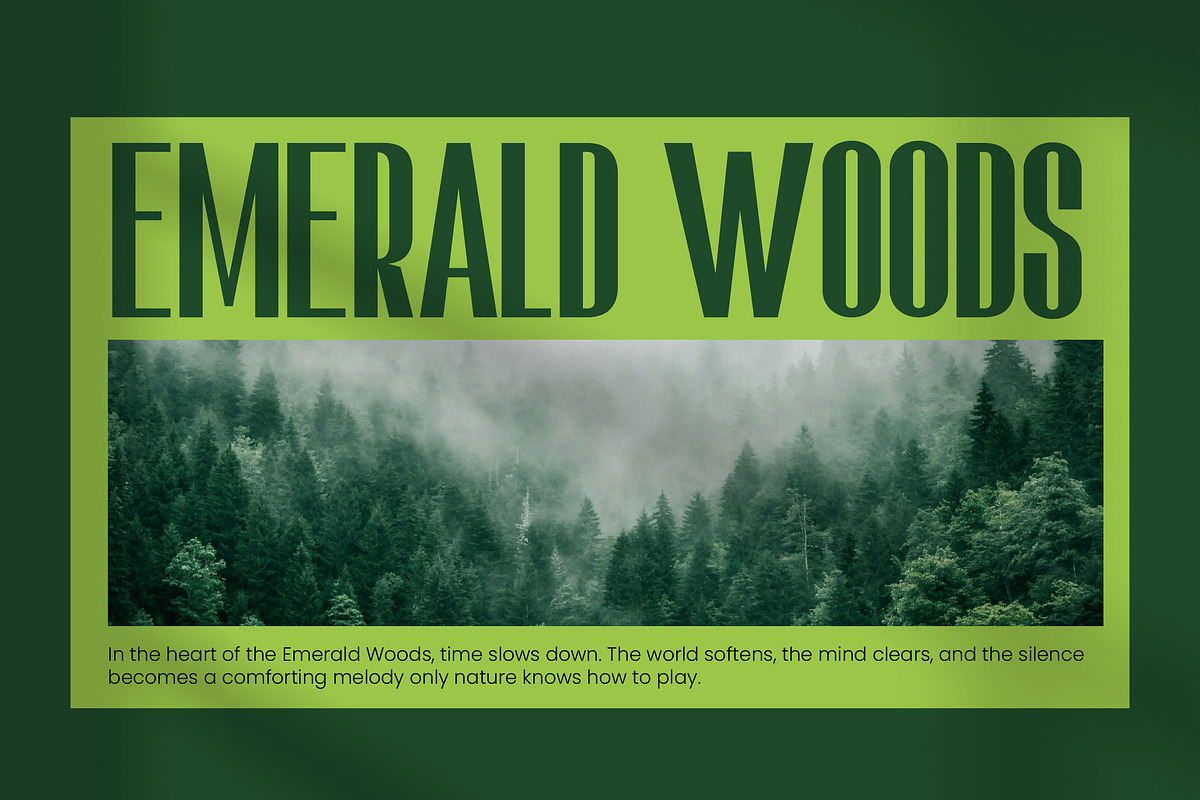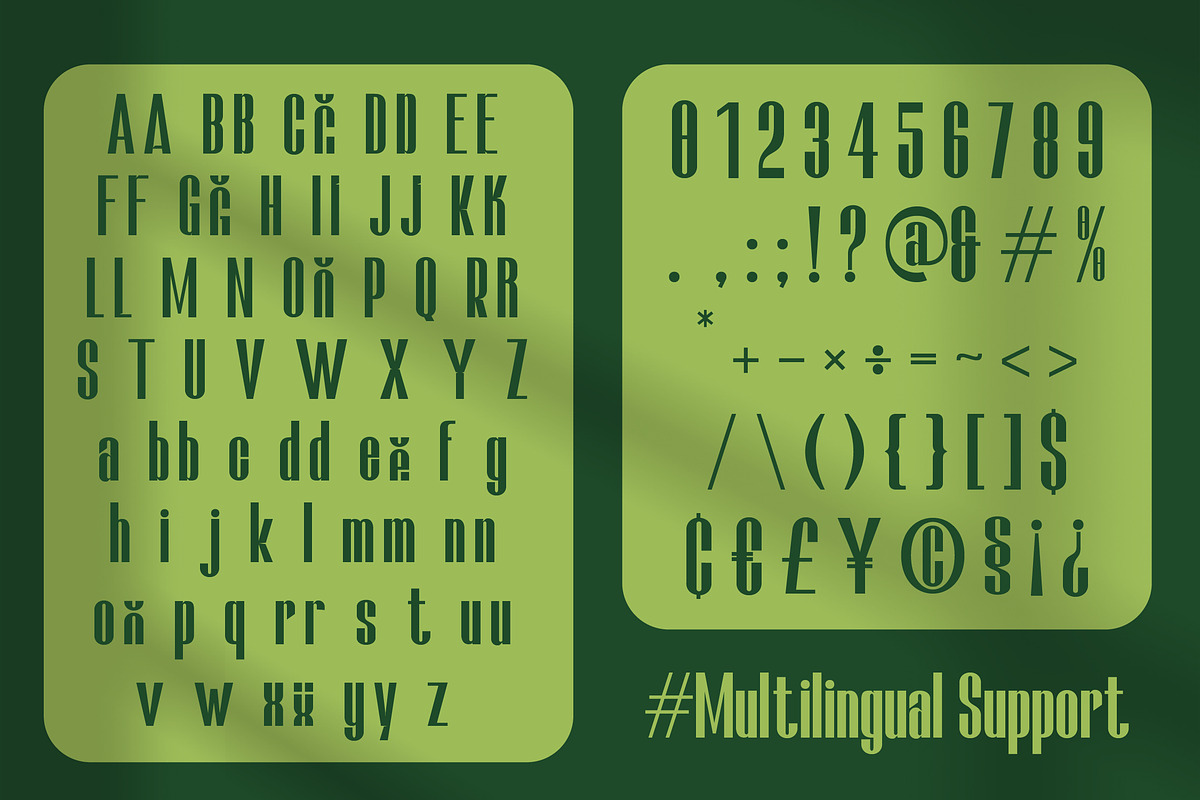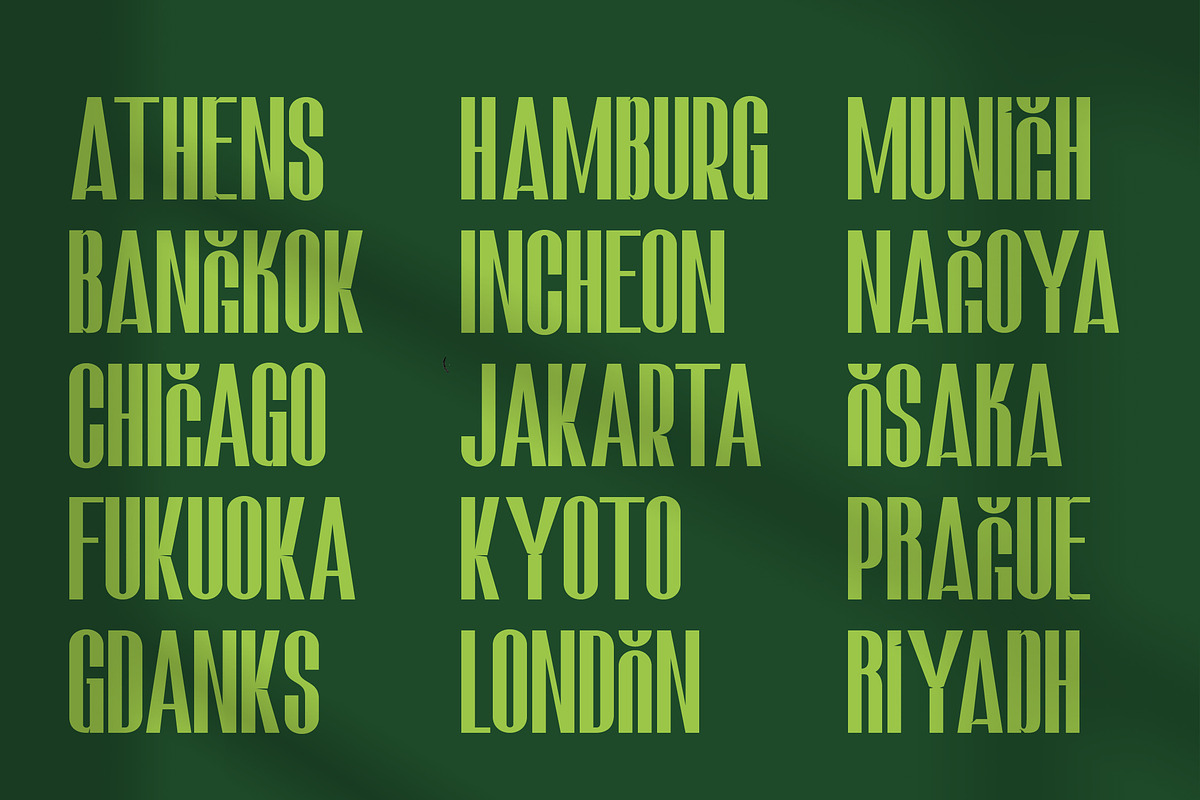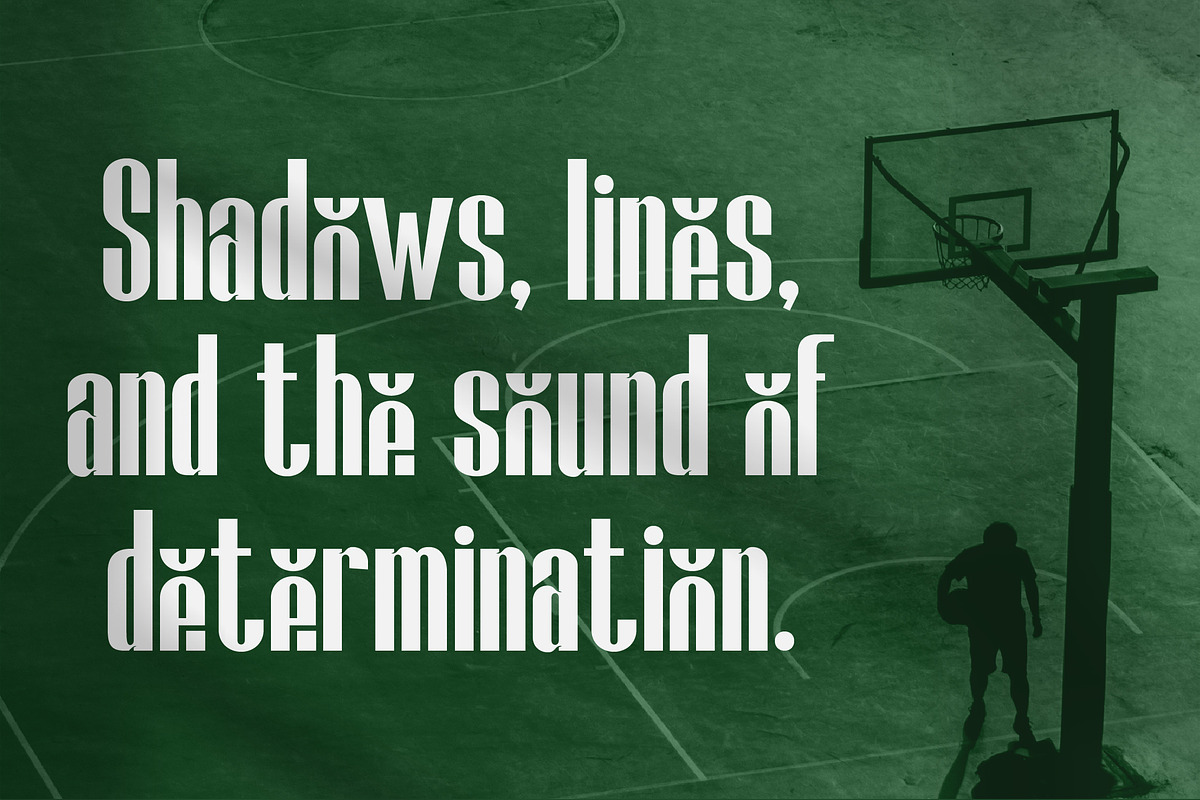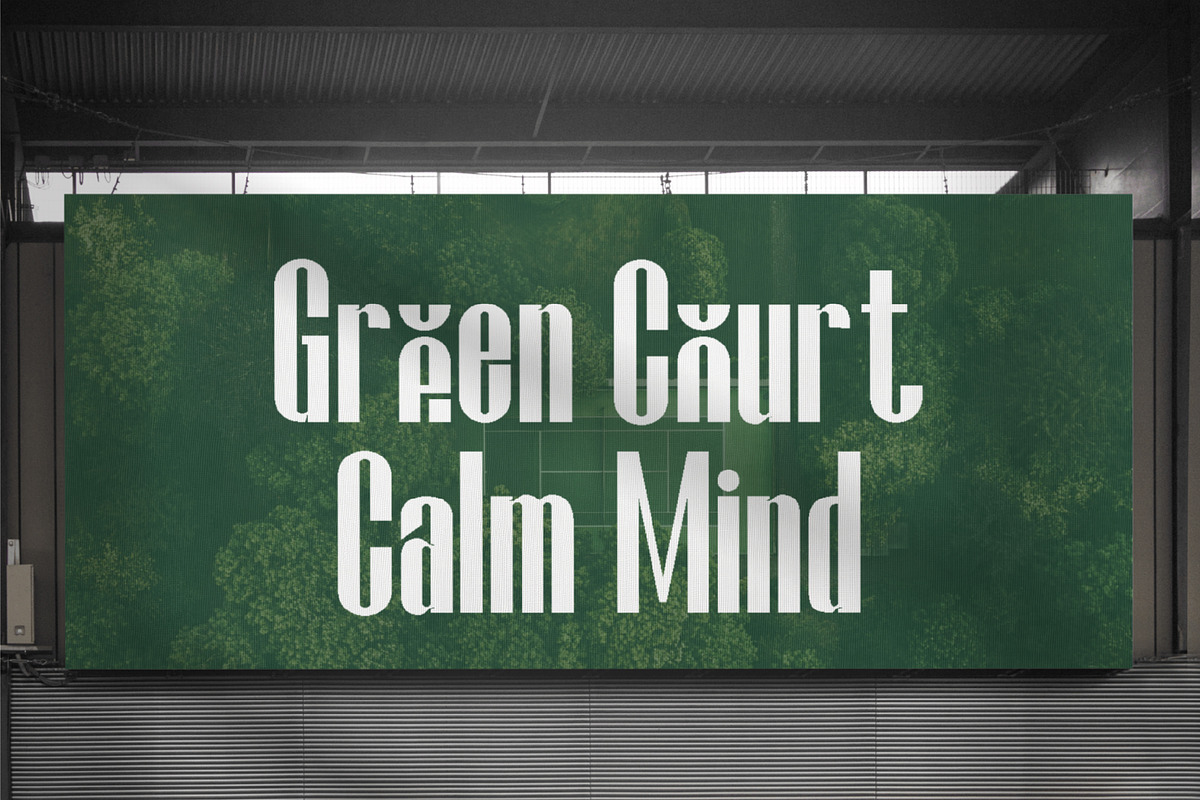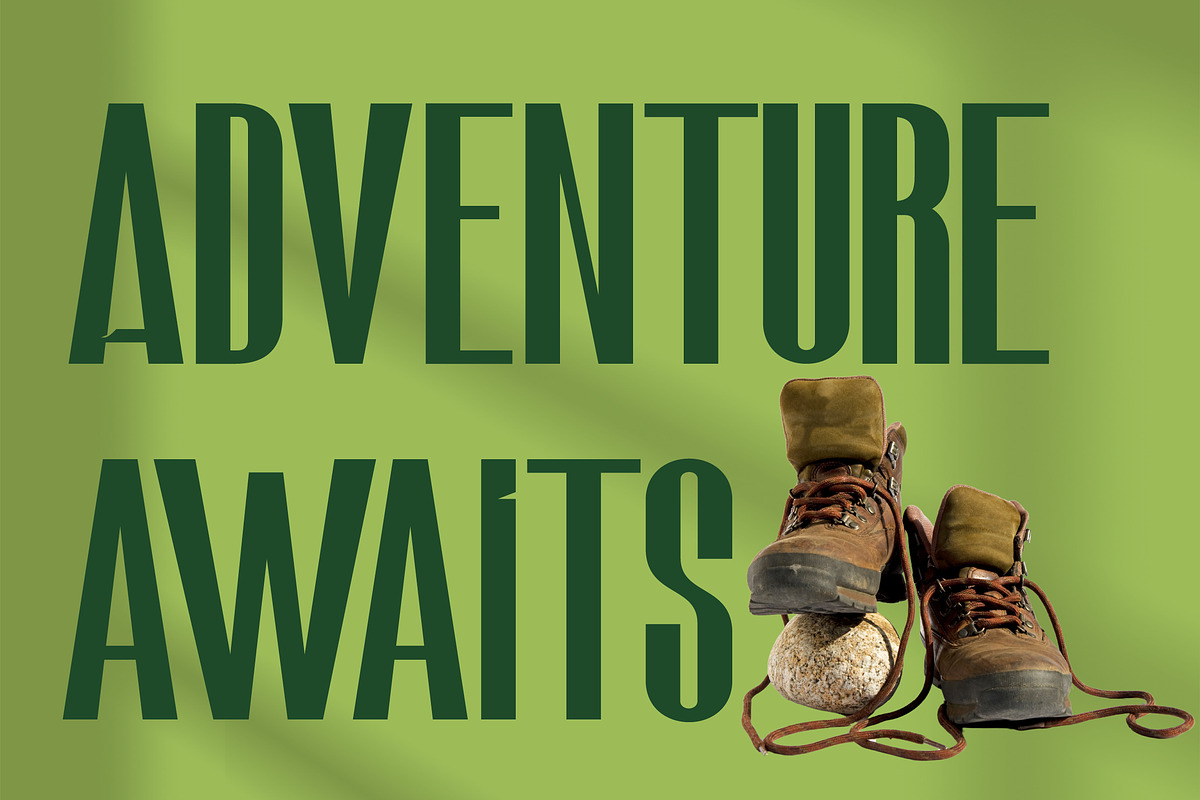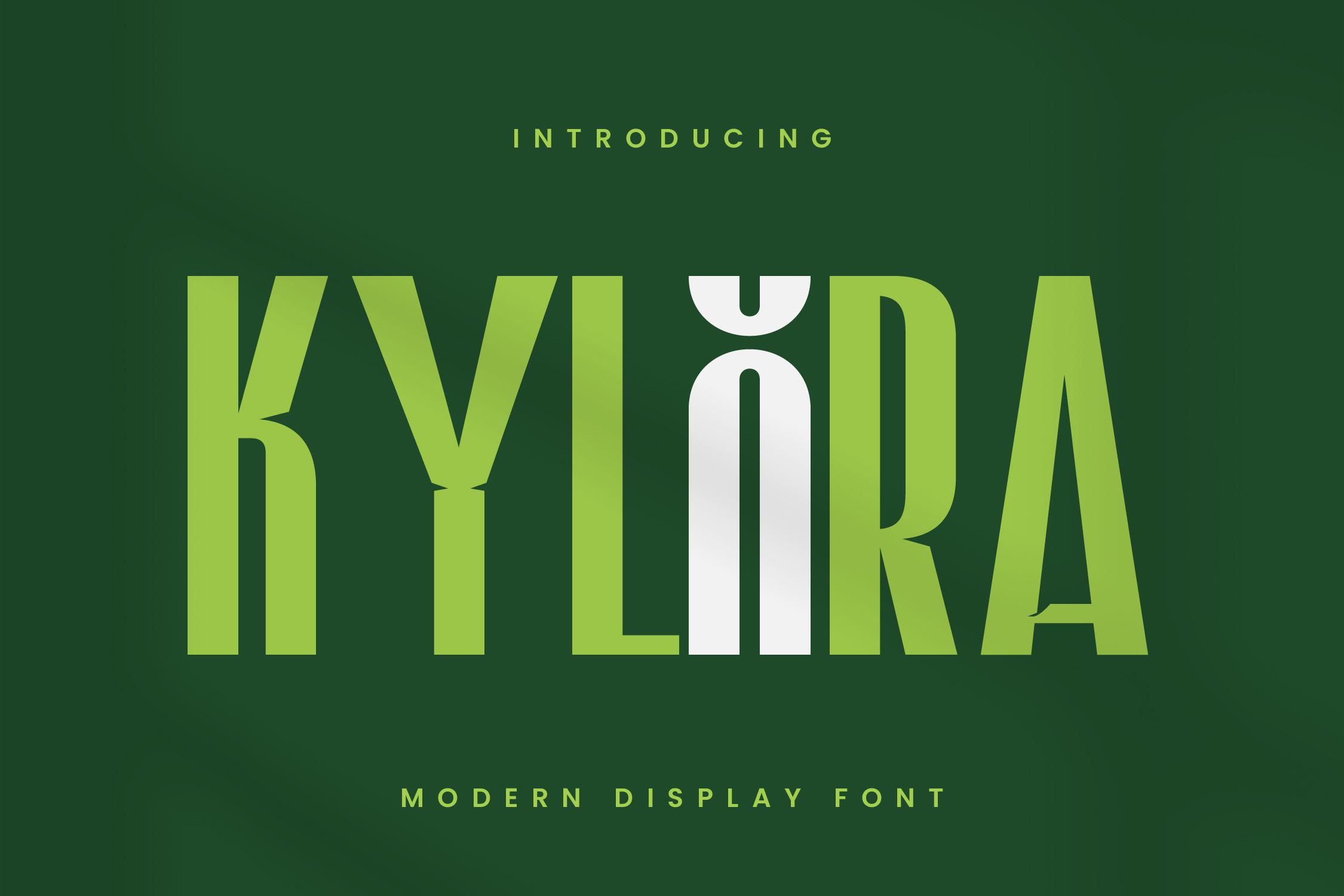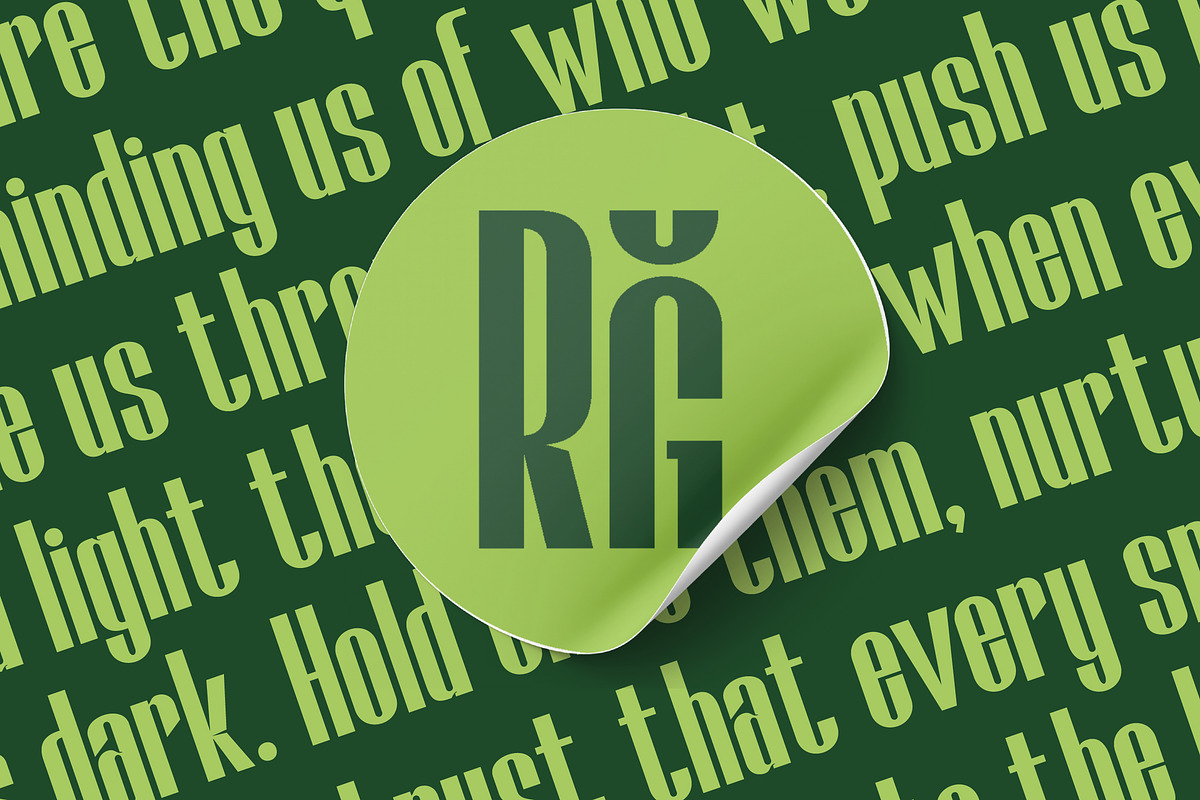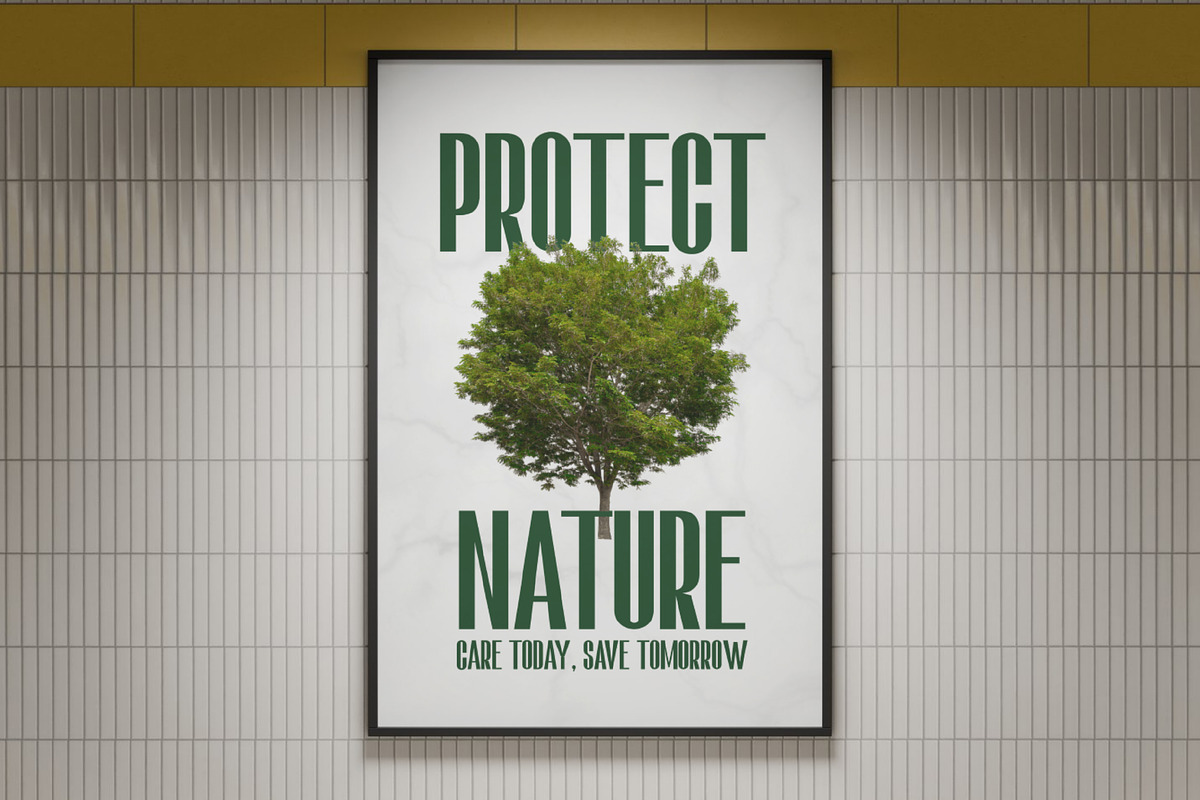
Kylora – Modern Display Font
Kylora is a bold modern display font designed with tall proportions, refined geometric forms, and a distinctive contemporary character. Blending elegance with a futuristic edge, KYLORA features elongated letterforms, sharp curves, and expressive accents that deliver strong visual impact and confident style.
Its narrow spacing and vertical rhythm create a sleek, eye-catching flow that stands out beautifully in both digital and print layouts. Each glyph is carefully crafted to balance simplicity and sophistication, making KYLORA highly versatile for modern branding and editorial design.
- Uppercase & Lowercase letters
- Accented Characters
- Clean, Modern & Stylish Design
- Logo & Brand Identity
- Headlines & Titles
- Posters & Advertising
- Magazine & Editorial Layouts
- Packaging Design
- Social Media & Motion Graphics
- Modern & Futuristic Visual Projects
Whether you’re creating a bold brand identity, designing a futuristic cover, or crafting stylish promotional materials, KYLORA brings a professional, modern, and confident typographic presence to your work.